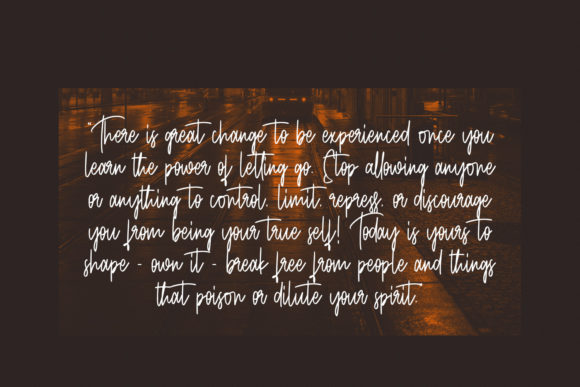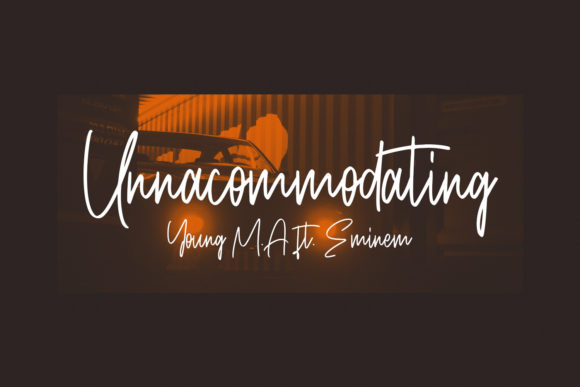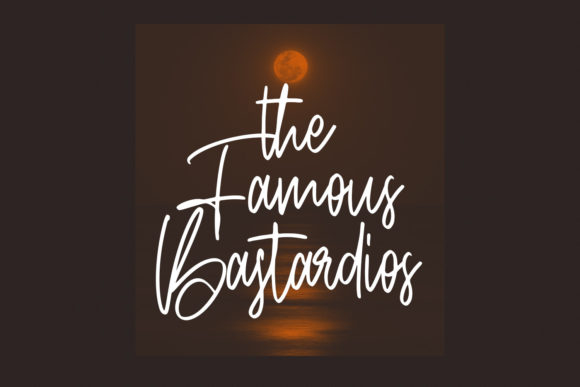
Introduction to Reality Clubs Font
As designers, we’ve all been there – staring at a blank canvas, trying to bring our creative vision to life. The right font can make all the difference, elevating our designs from mere aesthetics to a true reflection of our artistic intent. And that’s exactly where Reality Clubs Font comes in – a stunning signature script font that exudes authenticity and elegance.
Whether you’re working on a branding project, creating a social media campaign, or designing a beautiful wedding invitation, Reality Clubs Font is the perfect addition to your design resource arsenal. With its natural, handwritten feel and high-quality design, this font is sure to bring a touch of sophistication to any creative project.
Key Features of Reality Clubs Font
- High-quality font design: Reality Clubs Font is a well-crafted design resource ideal for creative projects.
- Unique characteristics: Reality Clubs Font features a unique blend of modern and futuristic elements, making it perfect for innovative and forward-thinking designs.
- Perfect for creative projects: This font is ideal for designers and artists working on high-quality, creative projects that require a distinctive and eye-catching design element.
Honest Review: Reality Clubs Font
As a designer, I’m always on the lookout for high-quality design resources that can elevate my creative projects. The Reality Clubs Font is one such find. Here’s my honest take on this font.
What works well: ✨ The Reality Clubs Font offers a unique blend of modern and retro elements, making it perfect for projects that require a touch of sophistication and playfulness. The font is also highly customizable, allowing you to adjust the size, color, and style to suit your design needs. The transparent background feature is a nice touch, making it easy to integrate with other design elements.
Limitations: ⚠️ While the Reality Clubs Font is a great addition to any design arsenal, it may not be suitable for all projects. The font’s bold and playful nature may not be the best fit for more conservative or traditional designs. Additionally, the font may require some tweaking to get the perfect look, especially when using it with complex design elements.
Overall, I’m impressed with the Reality Clubs Font. It’s a high-quality design resource that can add a unique touch to any creative project. With a free download option, it’s definitely worth checking out. If you’re looking for a font that can help you stand out from the crowd, the Reality Clubs Font is definitely worth considering.
- Unique blend of modern and retro elements
- Highly customizable
- May require tweaking for complex designs
The Reality Clubs Font is perfect for a variety of creative projects, including:
- Business cards
- Posters
- Infographics